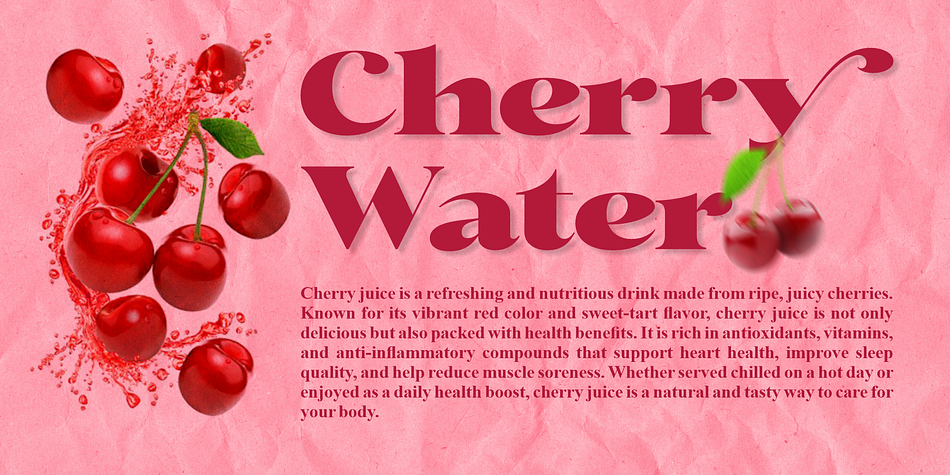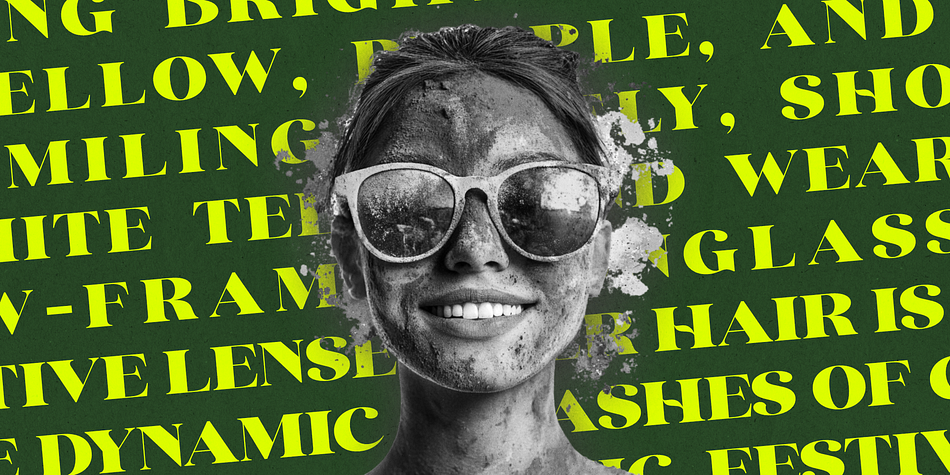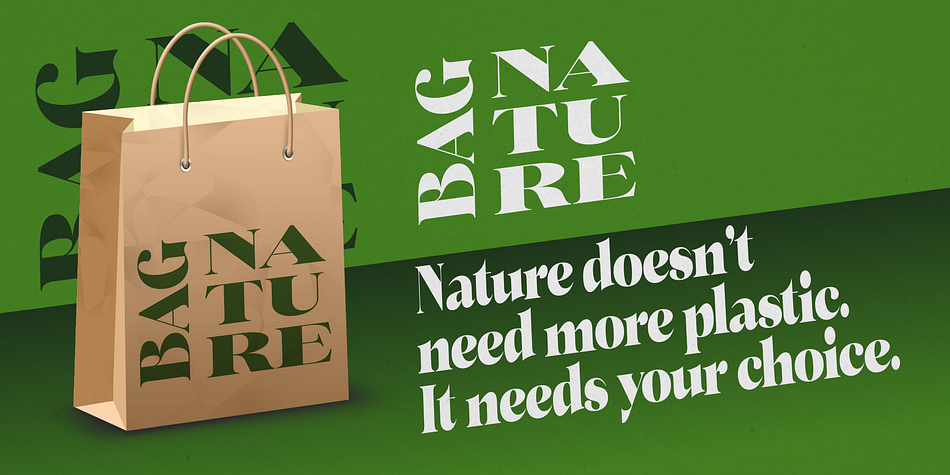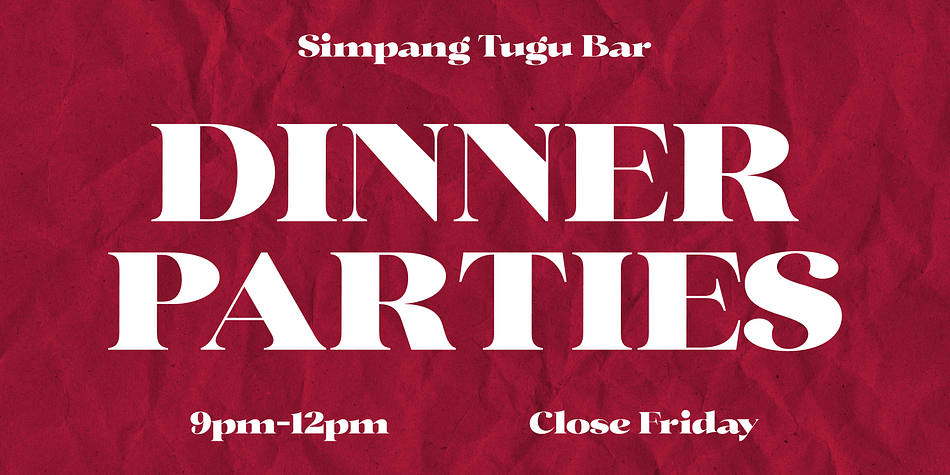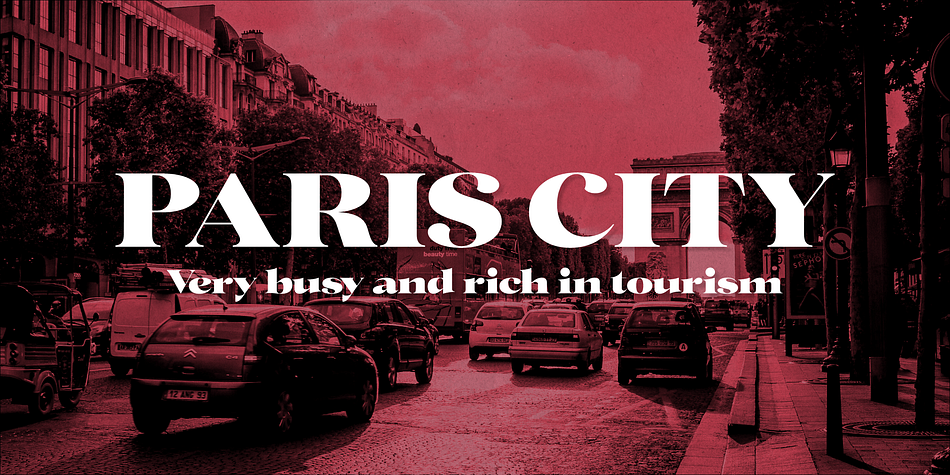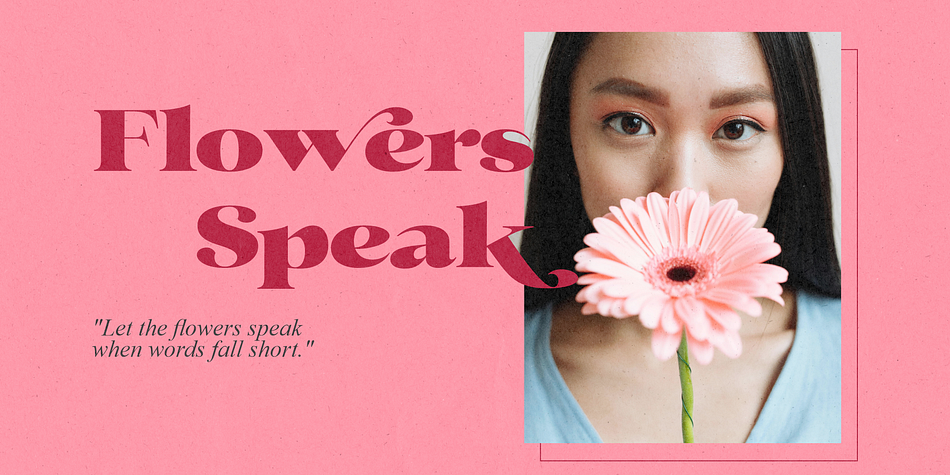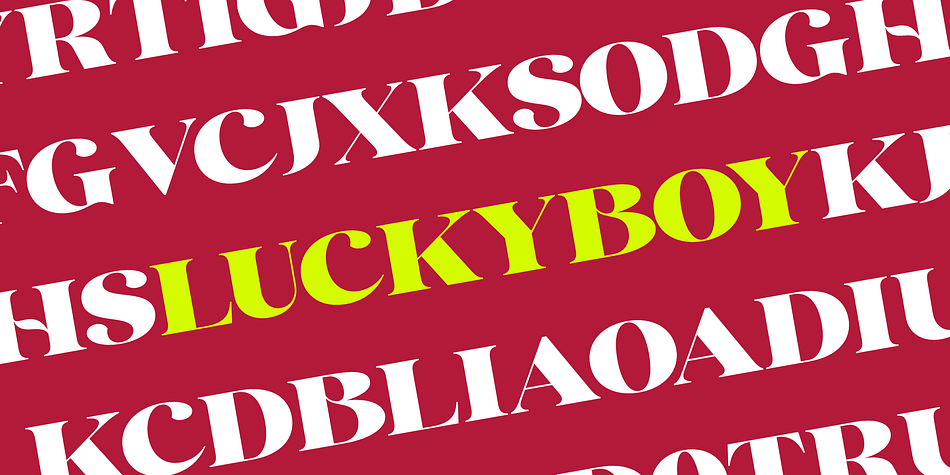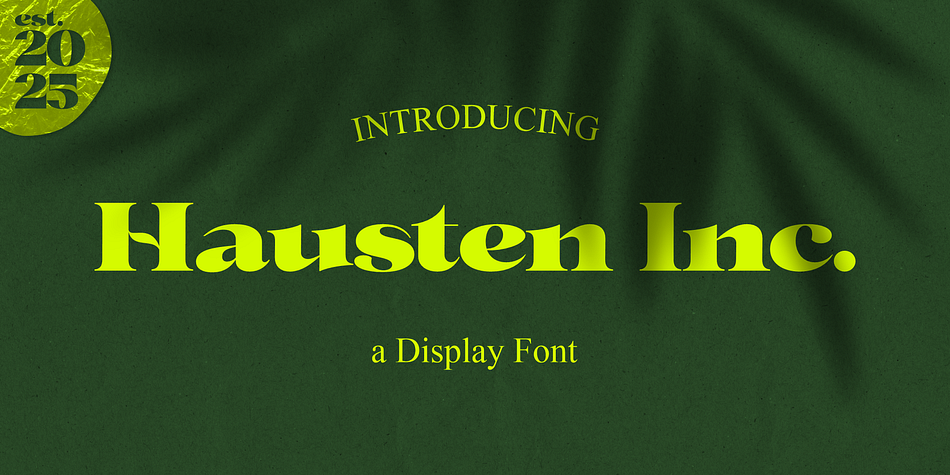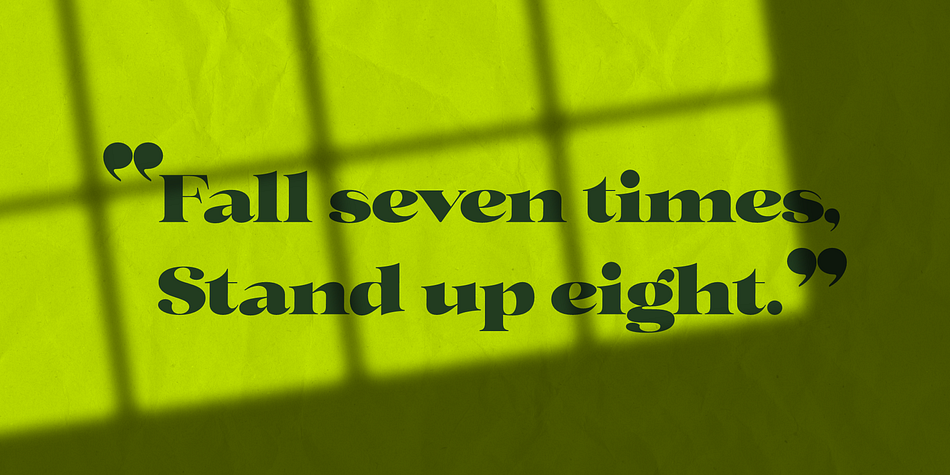
Housten
Housten is a serif font family. This typeface has two styles and was published by Gatype.
Housten is a classy and modern typeface. A beautiful and bold look that is designed specifically for display. Inspired by modern fashion and classic typography, this font features many alternate characters and ligatures.
The Housten typeface symbolizes luxury, elegance, opulence, fashion, and wealth. This font is perfect for logos, invitations, cards, magazines, apparel, fashion, lifestyle, posters, social media kits, and more!